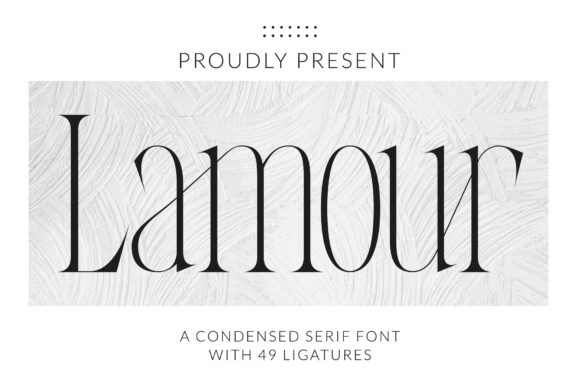
Introducing Lamour, the epitome of grace and sophistication, a serif font family that will captivate your audience. Its refined curves and delicate strokes evoke an allure that transcends the ordinary.
Crafted by the artistic visionaries at roomspace, Lamour is a masterpiece designed to elevate your creative endeavors. Its tall stature and elegant lines infuse every project with a timeless charm.
Immerse yourself in the world of Lamour, where simplicity meets grandeur. This versatile font dances effortlessly across logos, branding, invitations, stationery, and wedding designs. Its digital presence enhances social media posts, adding a touch of elegance to your online interactions.
Lamour's true magic lies in its versatility. Its adaptable nature effortlessly complements a myriad of design styles, from classic to contemporary. Its charm extends to magazine articles, transforming written words into captivating narratives that ignite imaginations.
With Lamour, you unlock the power to convey emotions through the written word. Its expressive glyphs and effortlessly flowing swashes add a touch of whimsy and allure to your creations.
Experience the transformative power of Lamour, a font that transcends the boundaries of typography. Let its timeless beauty enhance your designs and leave an everlasting impression on your audience.